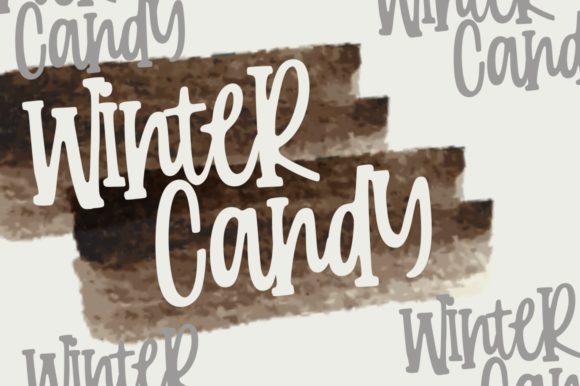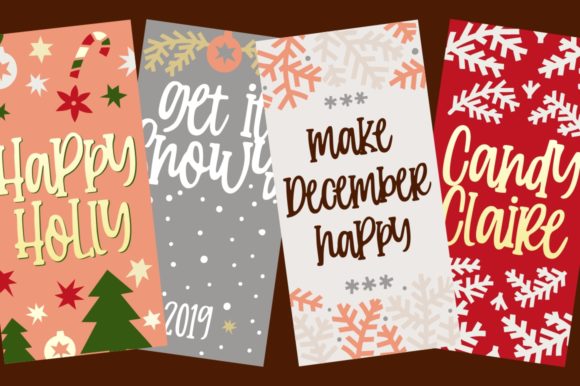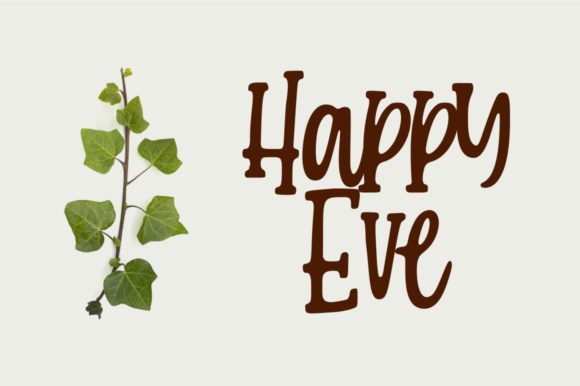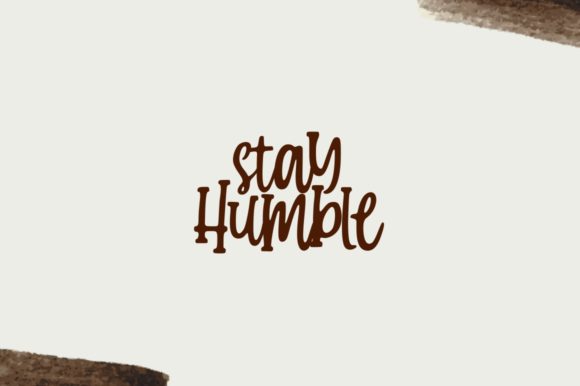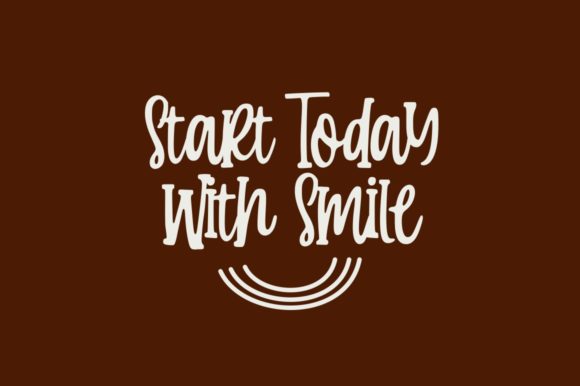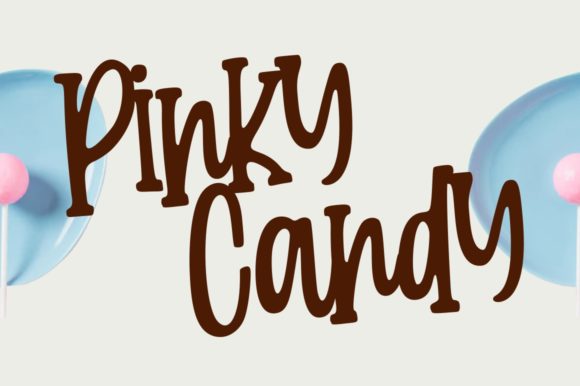
The Sweetest Addition to Your Design Palette: Candy Clause Font
Have you ever stumbled upon a font that makes you feel like a kid in a candy store? For me, that moment came when I discovered the whimsical Candy Clause Font. I was working on a project, searching for the perfect script font to add a touch of magic to my design. As I scrolled through font libraries, I knew I had found the one when I laid eyes on Candy Clause’s elegant, flowing lines.
As a designer, you’re always on the lookout for fonts that can elevate your work and leave a lasting impression. That’s exactly what Candy Clause Font offers – a unique blend of charm and sophistication that’s perfect for a wide range of designs, from wedding invitations to greeting cards.
Candy Clause Font Key Features
- Unique Characteristics: Features a playful, handwritten style with a festive twist, perfect for creating a whimsical and eye-catching design.
Candy Clause Font Review
Overall, I was pretty excited to dive into the Candy Clause Font. It’s definitely a fun, playful choice for projects that need a dash of holiday cheer. Here are some things that work well:
- ✨ The font is incredibly festive and fun to work with. It’s perfect for creating eye-catching holiday graphics or marketing materials.
- ✨ The font is highly legible, even at smaller sizes, making it a great choice for body text or captions.
- ✨ The font has a great range of weights and styles, making it easy to create a cohesive look for your project.
However, there are a few limitations that I want to mention:
- ⚠️ The font may be a bit too kitschy or over-the-top for some projects. It’s definitely not a good choice for more serious or professional work.
- ⚠️ The font’s playfulness can also make it feel a bit childish or immature. Be careful not to overdo it!
Overall, I’d say that the Candy Clause Font is a great choice for projects that need a fun, festive touch. Just be aware of its limitations and use it judiciously to get the best results.
Tips: Use the Candy Clause font for festive and playful designs, such as holiday cards, invitations, and social media graphics.
Tips: Use the Candy Clause font for custom illustrations, graphics, and print materials.
Tips: Use the Candy Clause font for presentations, reports, and documents that require a festive and playful touch.
Alternatives to “Candy Clause Font” for Designers
Great Vibes is a modern, elegant script font perfect for adding a touch of sophistication to your designs. It’s ideal for use in invitations, wedding stationery, and other high-end branding materials.
Compared to Candy Claus Font, Great Vibes has a more refined and sophisticated feel, making it suitable for more formal occasions. While Candy Claus Font is playful and fun, Great Vibes is more understated and elegant.
Carolyna Pro is a luxurious script font designed for high-end branding and packaging. It’s perfect for use in luxury goods, fashion, and beauty brands.
Compared to Candy Claus Font, Carolyna Pro has a more premium and high-end feel, making it suitable for luxury brands. While Candy Claus Font is playful and festive, Carolyna Pro is more sophisticated and elegant.
Alex Brush is a beautiful, elegant script font perfect for use in invitations, stationery, and other design materials. It’s ideal for adding a touch of sophistication and elegance to your designs.
Compared to Candy Claus Font, Alex Brush has a more refined and sophisticated feel, making it suitable for more formal occasions. While Candy Claus Font is playful and fun, Alex Brush is more understated and elegant.